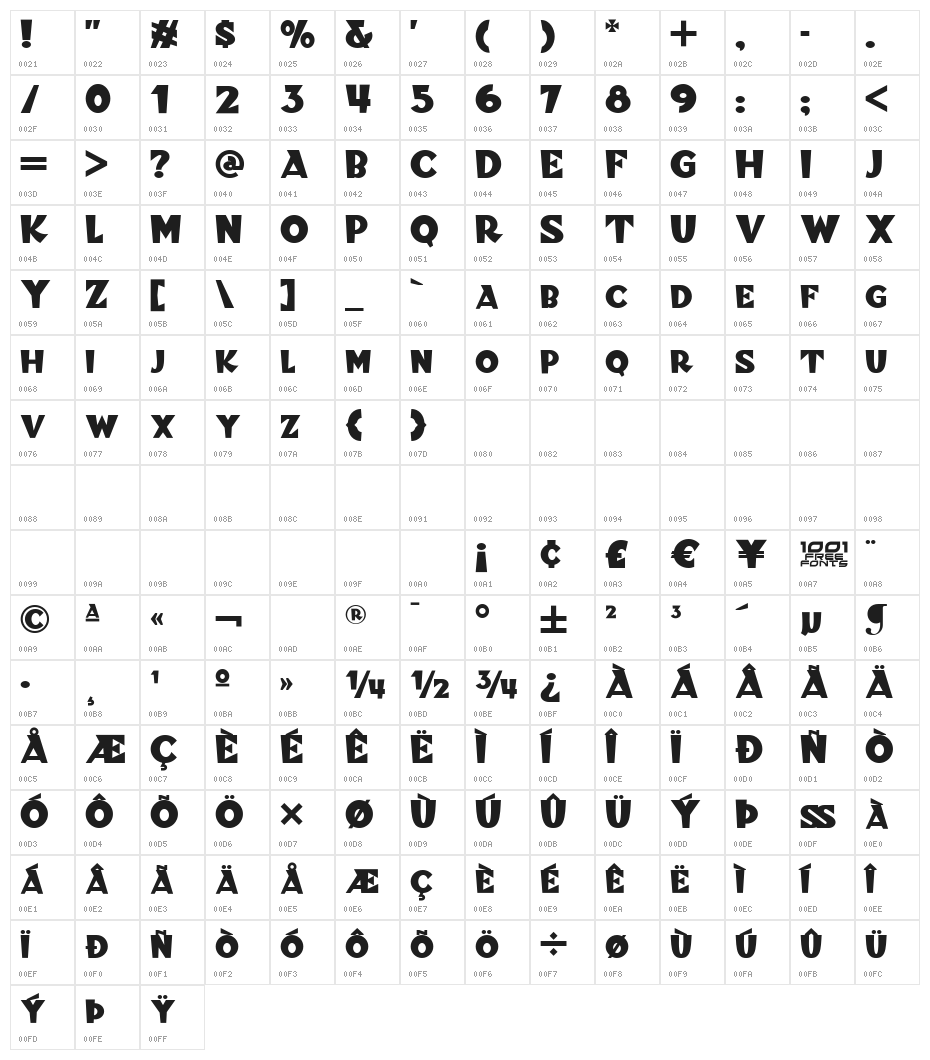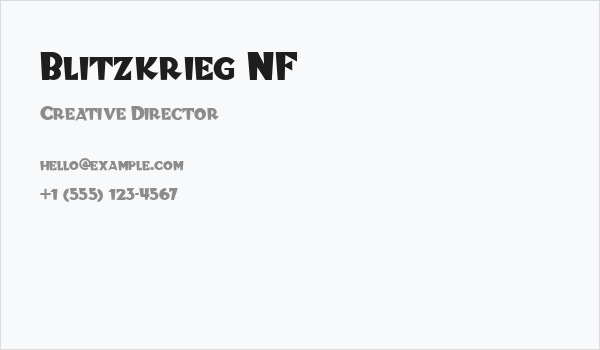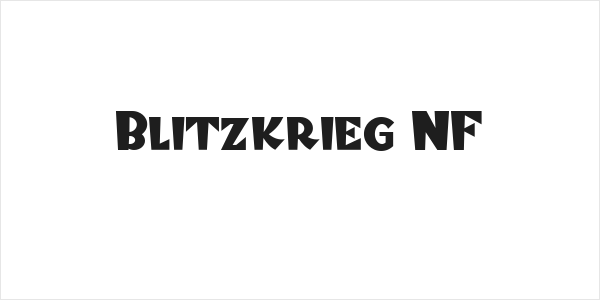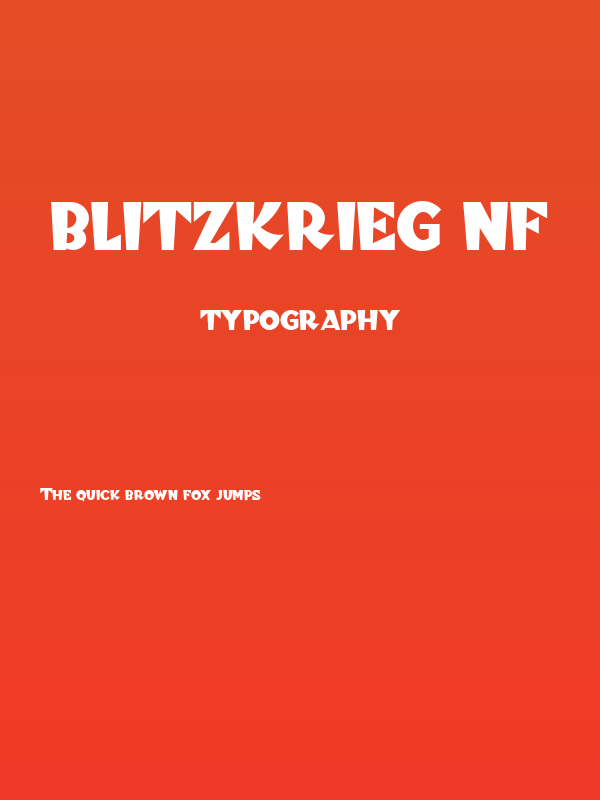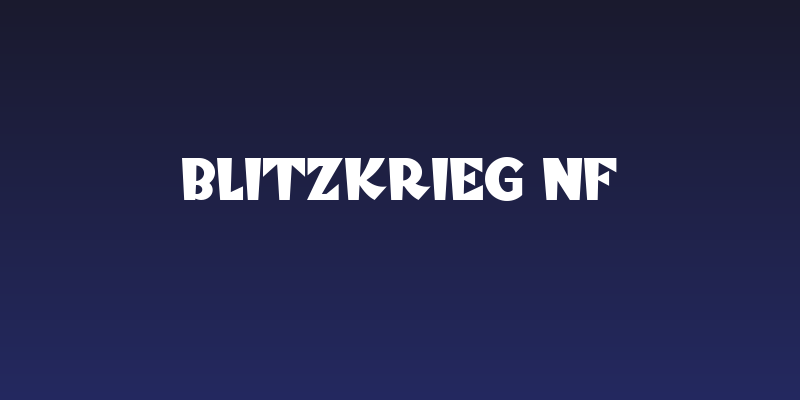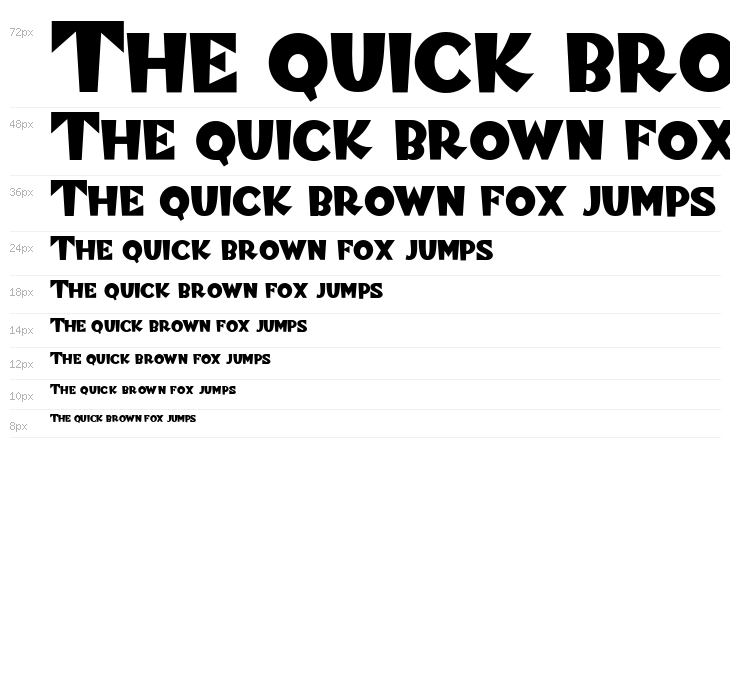
Blitzkrieg NF Font
Blitzkrieg NF Description
This font features a bold and dynamic style with sharp, angular edges and a strong geometric influence. The uppercase letters are particularly striking, with a sense of movement and energy that makes them stand out. The lowercase letters maintain this boldness, ensuring consistency across the typeface. Numbers and special characters are equally robust, contributing to the overall impact. The font's unique design elements make it ideal for projects that require a strong visual presence. Its boldness and distinct character make it suitable for attention-grabbing headlines and logos.
| Proposed Projects | Ideal for posters, branding, logos, and any design needing a bold statement. |